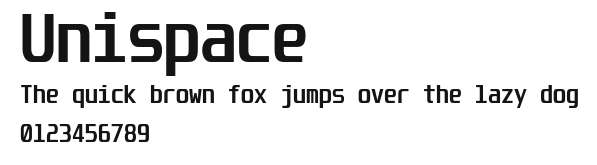
Unispace Preview
• Font Name: Unispace
• Designer: Ray Larabie
• Manufacturer: Ray Larabie
About Unispace.ttf
Unispace.ttf is a modern, elegant sans-serif font designed for ultimate readability and visual harmony. Perfect for branding, headlines, web design, and print materials.